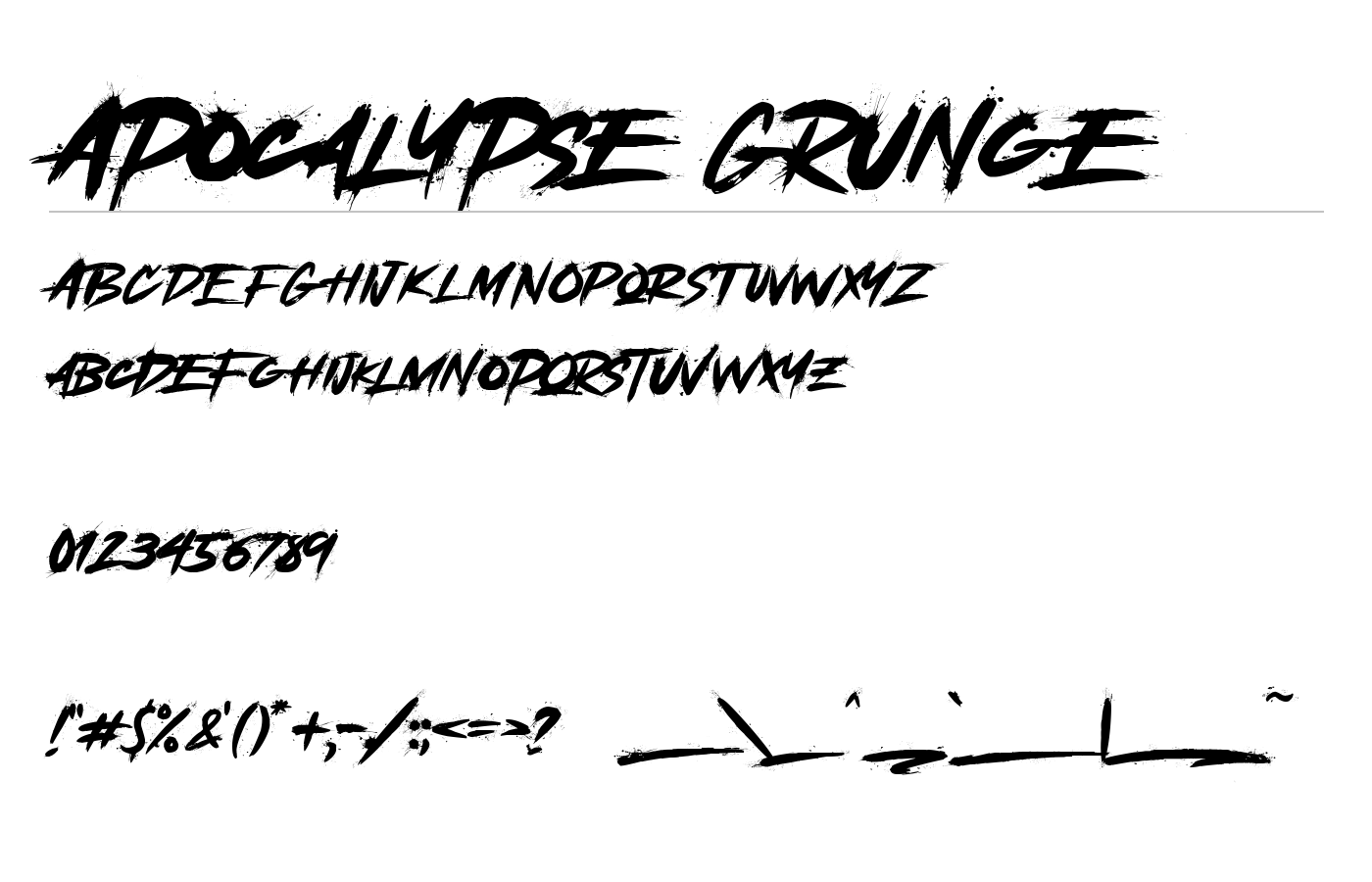
Apocalypse Grunge is a bold, brush-script font with a rough, distressed texture that creates a dynamic, edgy appearance. Its irregular strokes and splattered details convey a raw, rebellious energy, making it ideal for designs that want to express intensity and urban grit. This font works great for posters, logos, and branding where a striking, unconventional look is desired.
Apocalypse Grunge Font
About Apocalypse Grunge Font